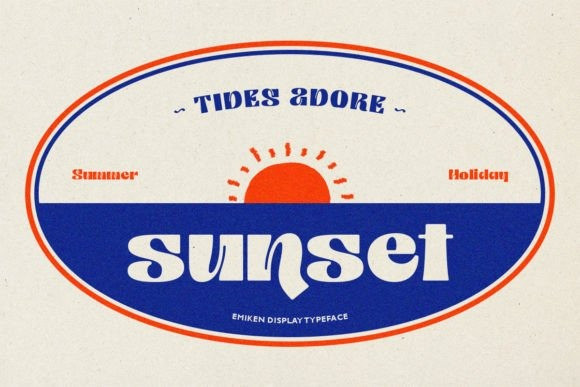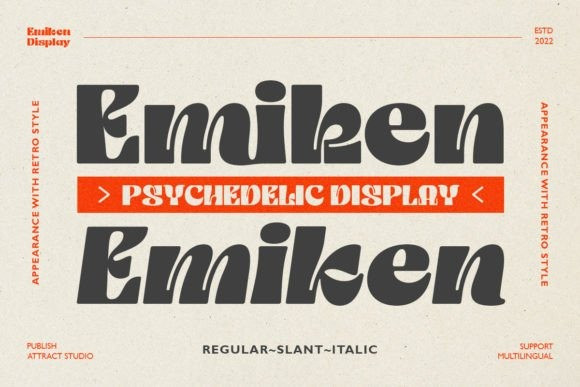
Emiken Font
Emiken Font is a fresh, contemporary display font with lots of psychedelic designs. Its cool and unique style is perfect for a wide pool of design ideas.